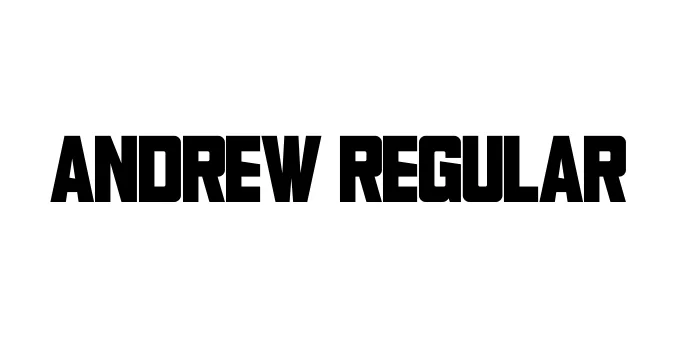
Andrew Regular
Designed by Vunira
| Font Name | Andrew |
| Designer | Vunira |
Andrew Regular is a sophisticated and versatile typeface designed to bring a touch of modern elegance to various creative projects. Characterized by its clean lines and balanced proportions, this font offers exceptional readability across both print and digital platforms. Its neutral yet distinct personality makes it a favorite among designers seeking a reliable workhorse for branding, editorial design, and interface layouts.
Originally developed to bridge the gap between classic geometric forms and contemporary humanistic touches, Andrew Regular has evolved into a comprehensive font choice. The meticulous attention to kerning and stroke consistency ensures that every character flows seamlessly, providing a professional aesthetic that enhances the visual hierarchy of any composition. Whether used for body text or subtle headings, it remains a timeless addition to any typography toolkit.
Andrew Regular Best Uses
Perfect for creating clean and memorable brand identities.
High legibility makes it ideal for website navigation and titles.
Excellent for body copy in magazines and digital publications.
Great for clean, aesthetic quotes and promotional graphics.